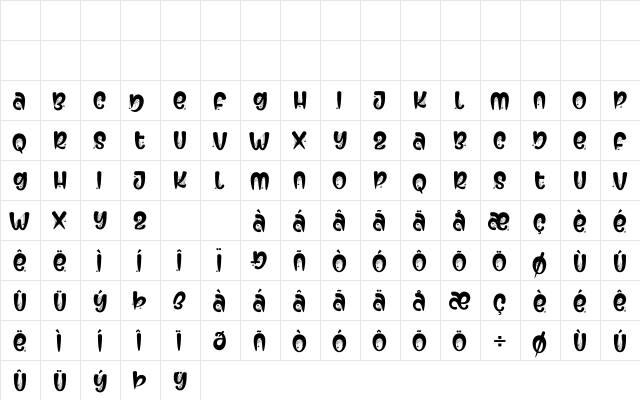
Secret Midnight Regular
| Designer | Rangga Singgih Subekti |
Design Context for Secret Midnight Typeface
Secret Midnight is a composed and adaptable typeface that performs quietly and consistently across a wide range of design contexts.